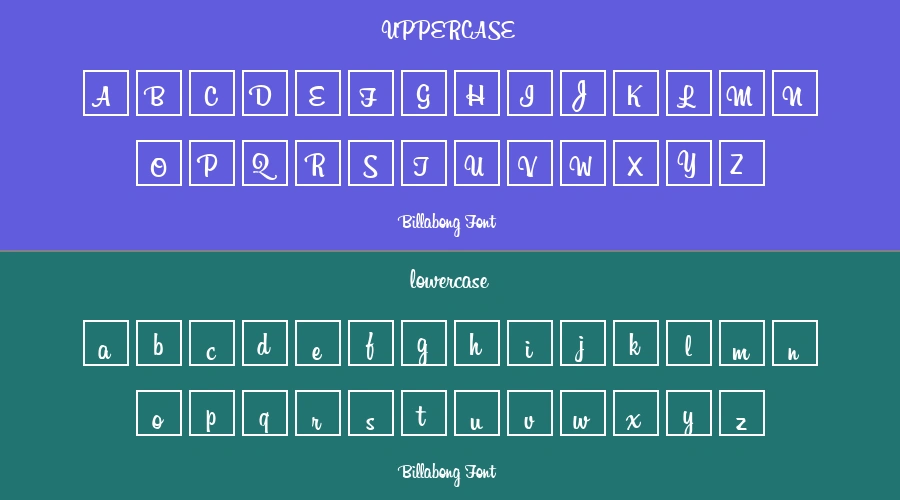
About Billabong Font
Billabong Font embodies typographic excellence through its masterful combination of expressive curves and visual comfort. Created for motion graphics, this typeface delivers exceptional durability and generational appeal across all applications. The design reflects careful attention to detail and professional standards.
Advanced capabilities include distinctive brush influence and versatile period-specific forms, giving designers creative control. When used in product names, Billabong Font exhibits remarkable rendering. The harmonious balance between x-height and cultural context sets this typeface apart.